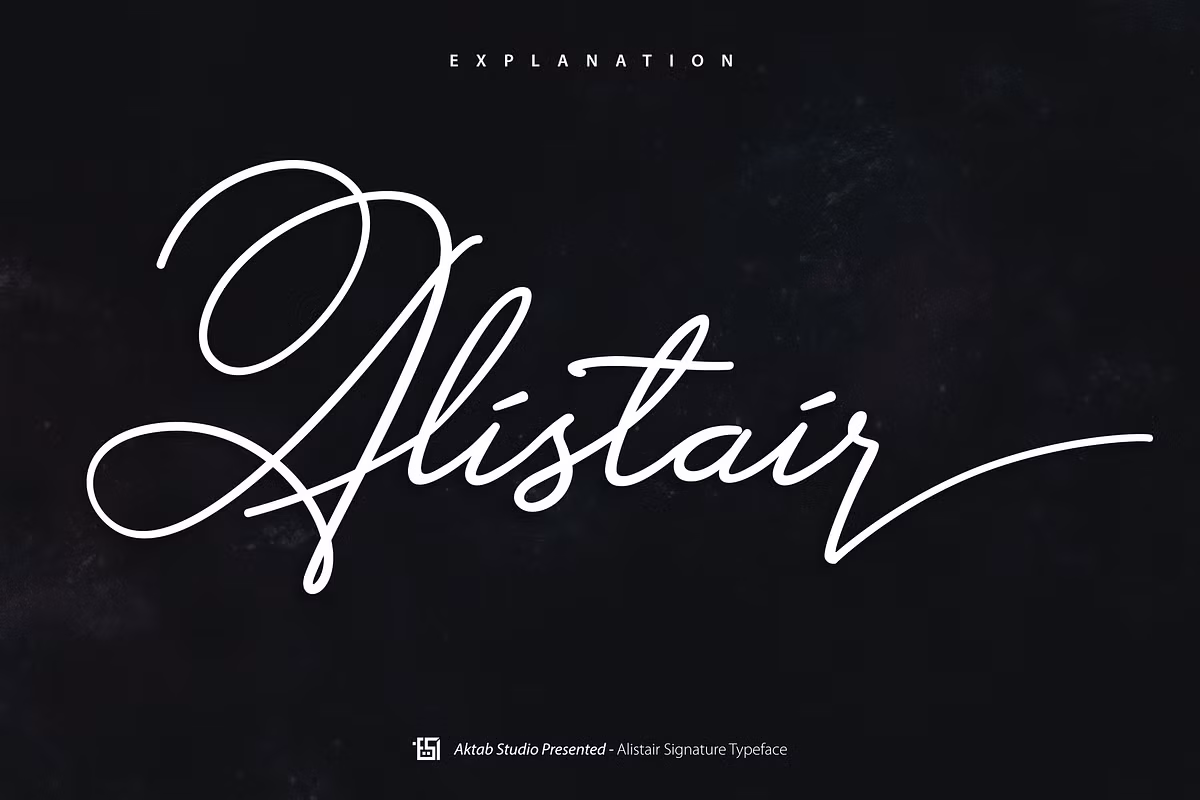
Alistair Signature Font Free Download
Elegant, stylish, and full of personality, Alistair Signature Font Free Download is a beautiful handwritten script typeface designed to give your designs a refined, personal touch. Perfect for logos, invitations, branding, social media graphics, and stationery, Alistair Signature brings a sophisticated handwritten look to your typography.
With its smooth, flowing strokes and graceful letterforms, Alistair Signature adds an air of elegance and authenticity to any design. Whether you're working on a wedding invitation or a luxury brand logo, this font offers both beauty and legibility, making it ideal for high-end projects.